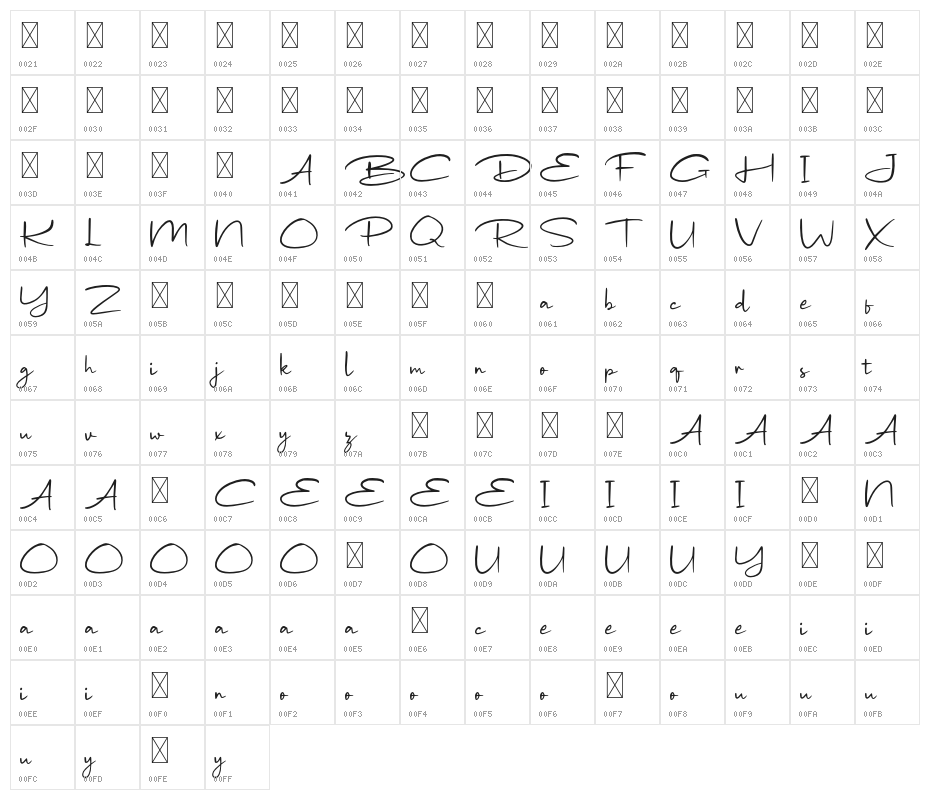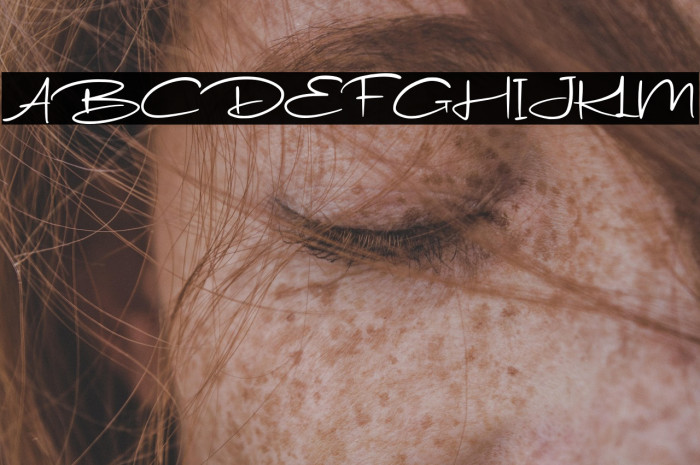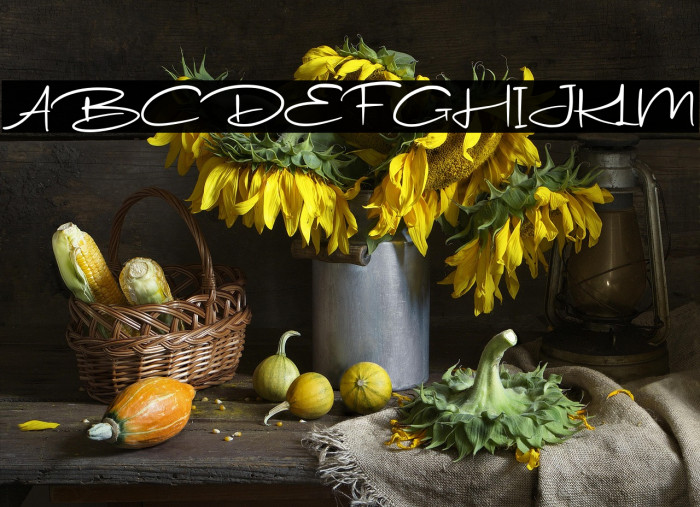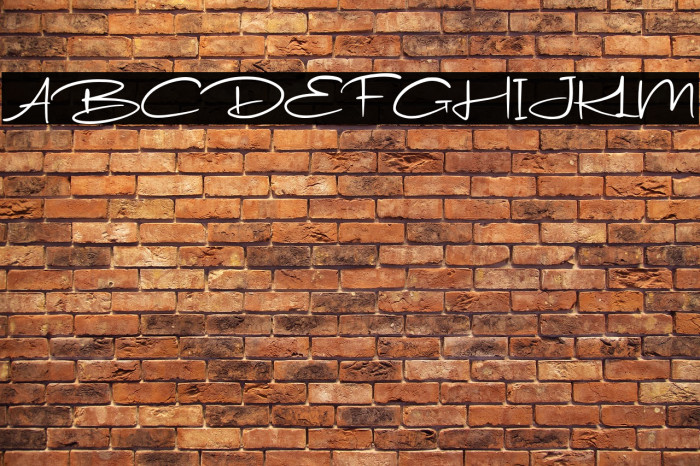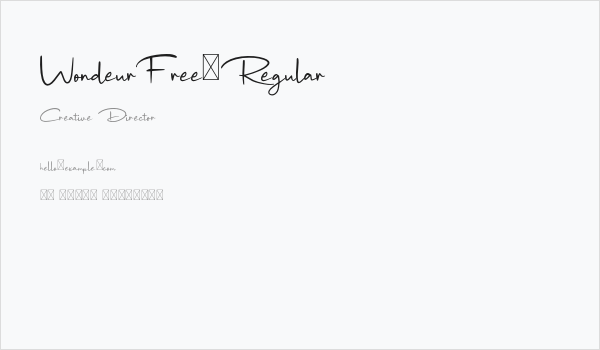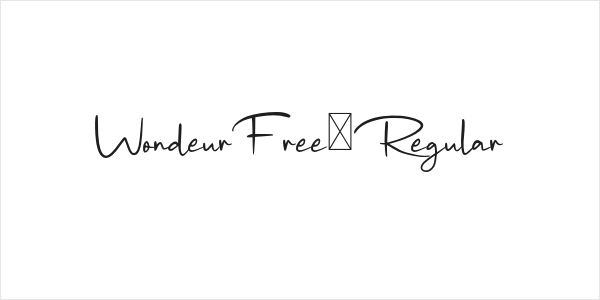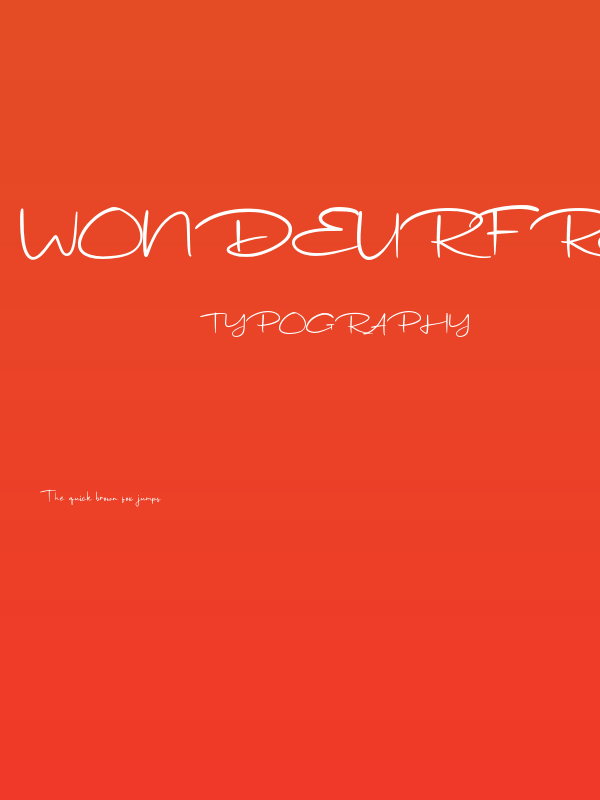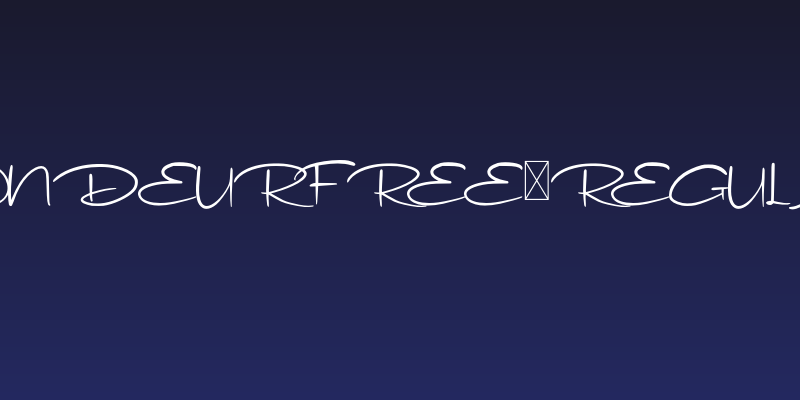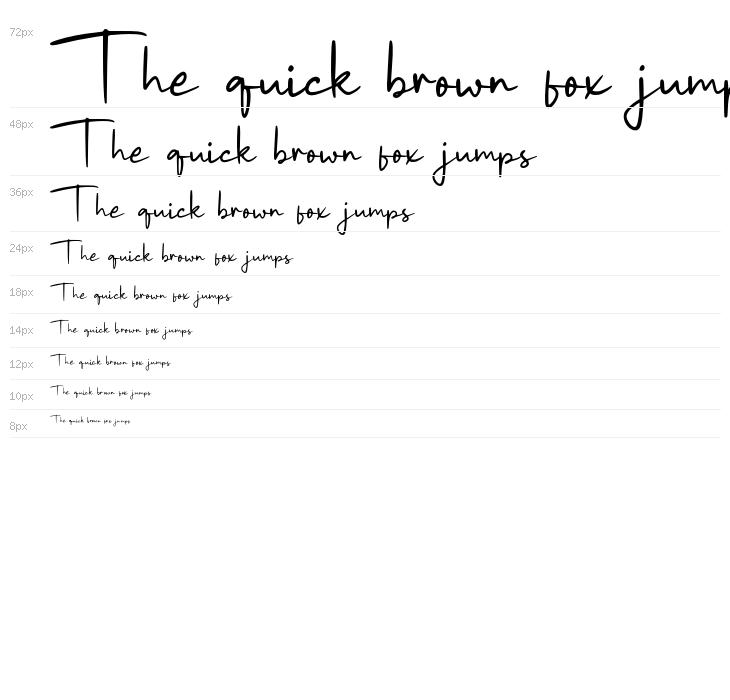
WondeurFree-Regular Font
WondeurFree-Regular Description
This font features a playful and dynamic script style with a handwritten appearance. The uppercase letters are characterized by their flowing, interconnected strokes, giving a sense of movement and fluidity. The lowercase letters maintain a consistent style, with some letters featuring loops and curves that add to the overall whimsical feel. The font's design is casual yet elegant, making it suitable for a variety of creative projects. The characters are well-spaced, ensuring readability while maintaining the artistic flair. The font does not include special characters, focusing instead on a complete set of uppercase and lowercase letters.
Overall StyleCasual, Elegant
Use CaseLogos, Invitations, Greeting Cards
Proposed ProjectsIdeal for greeting cards, invitations, personal branding, and creative projects requiring a personal touch.